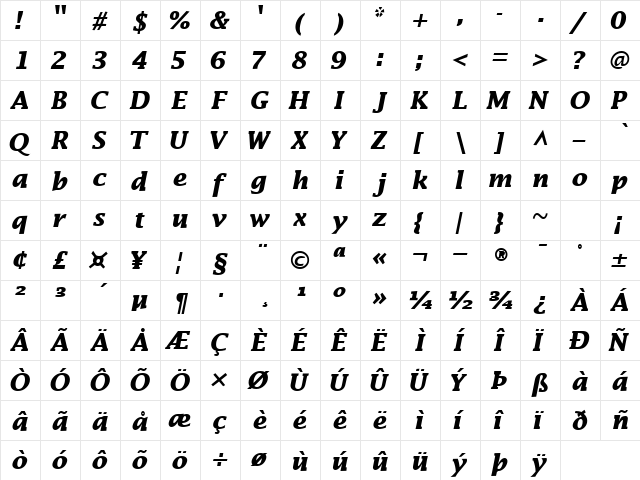
MachadoSSK Bold Italic
Design Context for MachadoSSK Typeface
MachadoSSK is a composed and adaptable typeface that performs quietly and consistently across a wide range of design contexts. The dynamic lean of this cut emphasises speed and emphasis in any layout. Its bold stroke weight gives it real presence on the page.